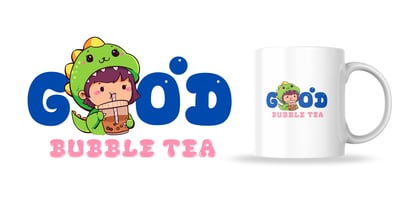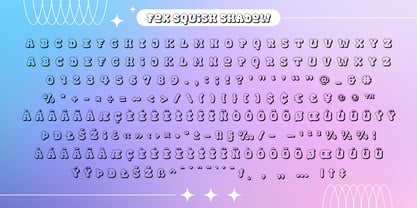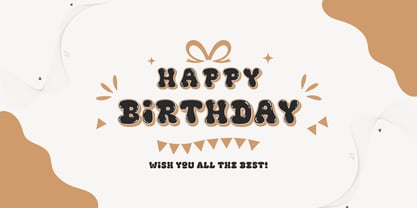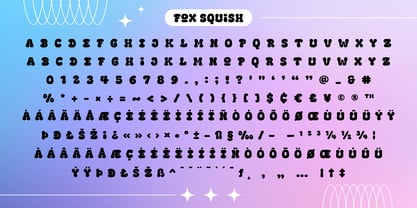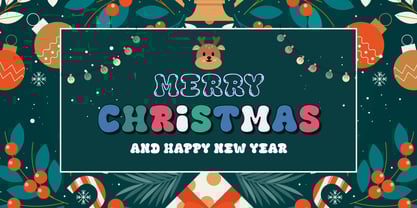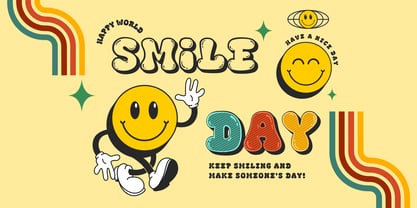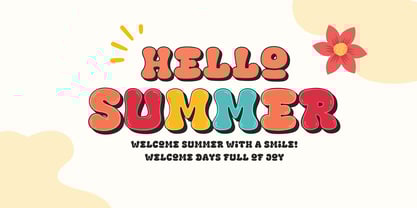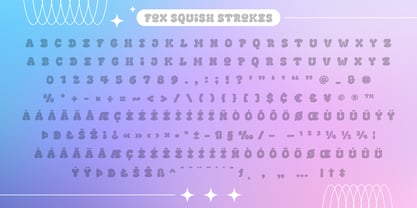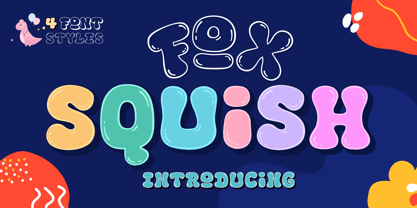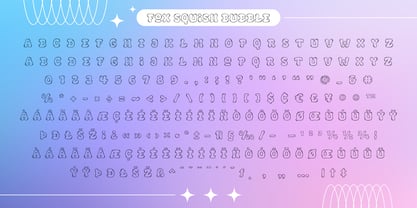
Fox Squish
Fox Squish – Playful Bubble Font Family (4 Styles)
Say hello to Fox Squish, a super fun and bubbly display font family that brings joy and bounce to your creative projects! Perfectly crafted for playful branding, kids’ designs, packaging, greeting cards, social media graphics, and more!
This font comes in 4 unique styles to mix and match for extra creative freedom:
🌼 Regular – Bold and smooth with a soft rounded look.
🌼 Bubble – Outlined with glossy highlights, giving a puffy, balloon-like appearance.
🌼 Shadow – A 3D-style version with a fun retro vibe.
🌼 Strokes – Filled with diagonal lines for a vintage print effect.
Each style is designed to be eye-catching and versatile, making it ideal for cheerful, cute, or retro-themed designs. With playful curves and a squishy personality, Fox Squish will make your work stand out in the happiest way!
🎨 Perfect for: Children’s books, kawaii graphics, party invitations, t-shirt designs, logos, YouTube thumbnails, and more!